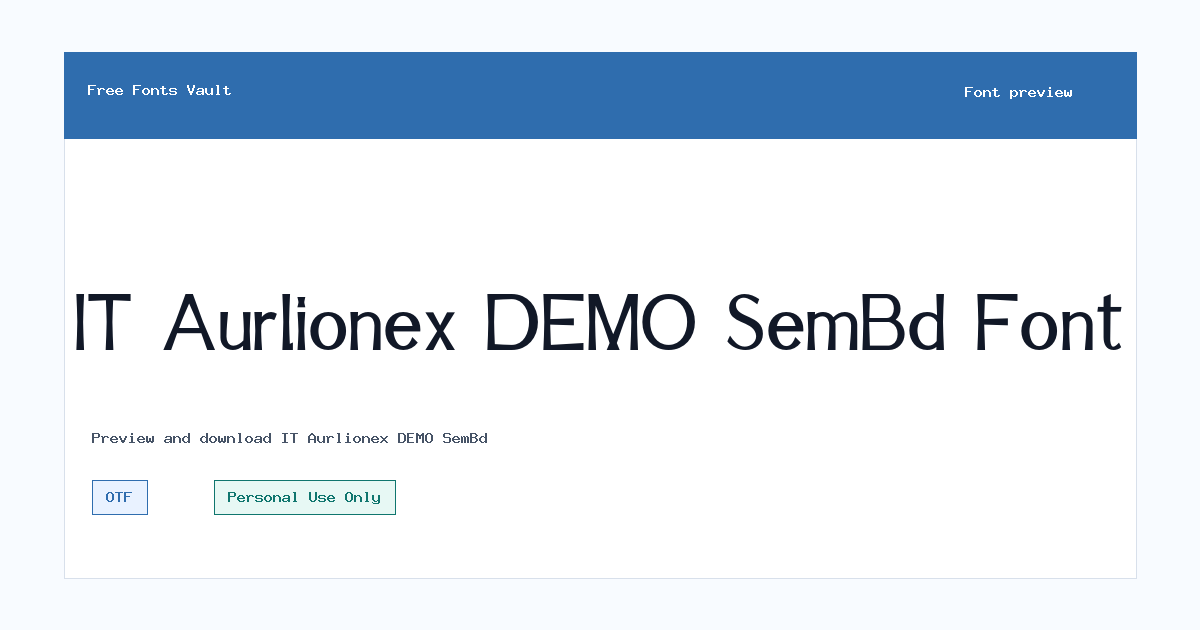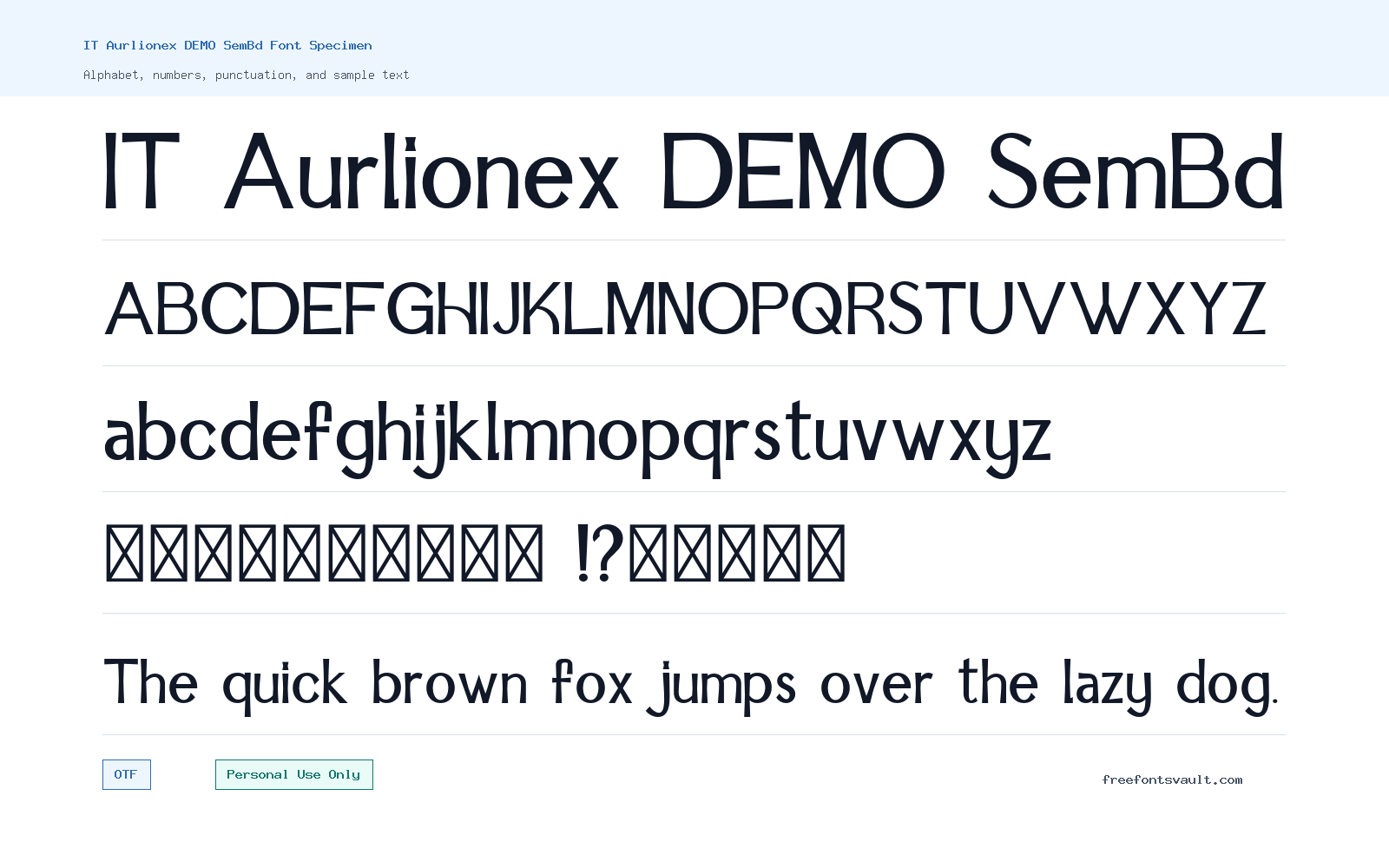
IT Aurlionex DEMO SemBd
- Designer Indotype Foundry
- Foundry Indotype Foundry
IT Aurlionex DEMO SemBd font.
IT Aurlionex DEMO SemBd is a semi-bold OTF font from Indotype Foundry. It is a personal-use demo font, so it is best treated as a preview and testing option rather than a final commercial production font.
About IT Aurlionex DEMO SemBd
IT Aurlionex DEMO SemBd belongs to the Aurlionex sans serif family name and comes in an OTF file format. The “SemiBold” naming suggests a stronger weight than a regular style, making it useful when you want text to feel more present without jumping all the way to a very heavy display look. Because only one demo semi-bold style is listed, the safest way to judge it is through short previews: try your brand name, poster title, menu heading, social graphic text, or a few interface labels and compare how the letter spacing, curves, and weight behave at different sizes.
For designers, this font can be useful during early concept work where you need a clean sans serif voice with enough weight for headings. It may suit logo drafts, poster titles, web mockups, packaging tests, editorial headers, and social media layouts, especially when the text is short and needs a firm visual presence. Keep longer paragraphs in a more neutral reading typeface unless your preview shows strong readability at small sizes. Since this is a demo personal-use font, use it to explore direction, build private mockups, or test a visual idea before checking the proper license for any client, public, or commercial release.
- Semi-bold weight for headings, labels, and short display text
- Sans serif family description for a clean, modern text direction
- Single demo style, making preview testing important before building a full layout around it
- Logo concept drafts and brand-name previews
- Posters, flyers, and short promotional headlines
- Web and app mockups that need a stronger sans serif heading
- Social media graphics with short, readable text
- Packaging, label, and presentation title experiments
What weight is this font?
The listed style is SemiBold, with a font weight value of 700. It is better suited to headings and short emphasis than long body text.